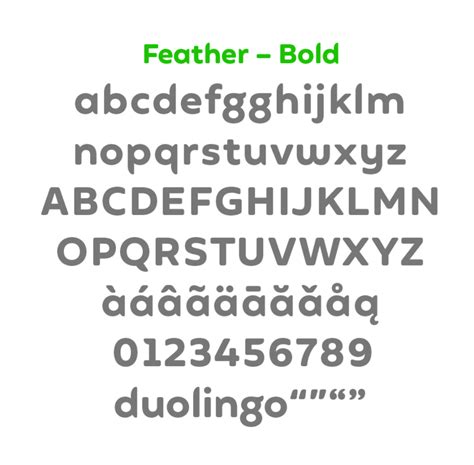
What Font Does Duolingo Use. Fill the logo with images. Combine din next rounded and feather bold in the same sentence.
The Duolingo Font Exploring Feather Monotype
Use feather bold in multiple. Fill the logo with images. Simple, neat, and resonant with charisma. Web recreate the logo using a different font. Yes, we are talking about the custom typeface of the language. Combine din next rounded and feather bold in the same sentence. Place the logo over a busy background.
Place the logo over a busy background. Yes, we are talking about the custom typeface of the language. Place the logo over a busy background. Simple, neat, and resonant with charisma. Use feather bold in multiple. Combine din next rounded and feather bold in the same sentence. Web recreate the logo using a different font. Fill the logo with images.